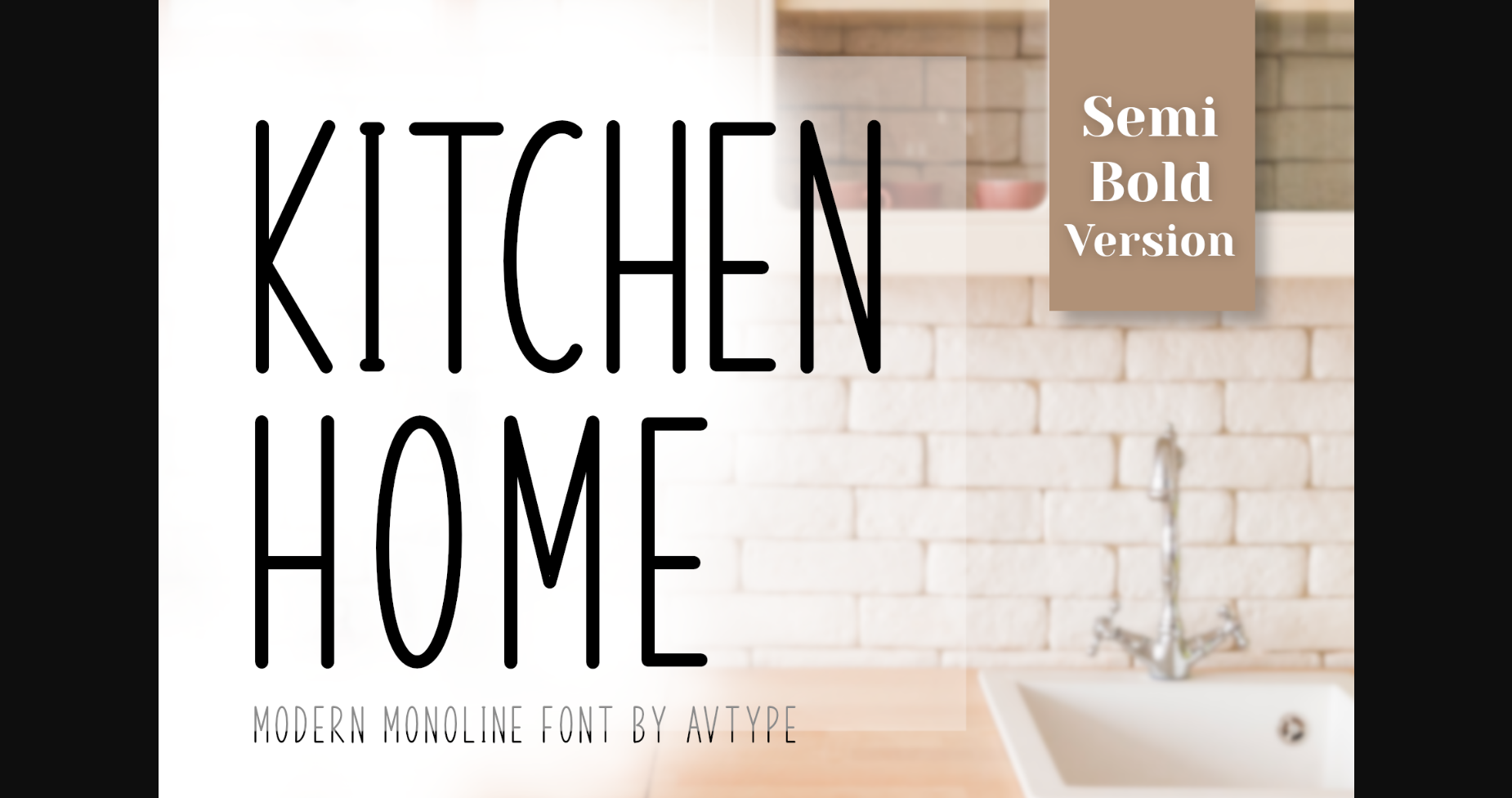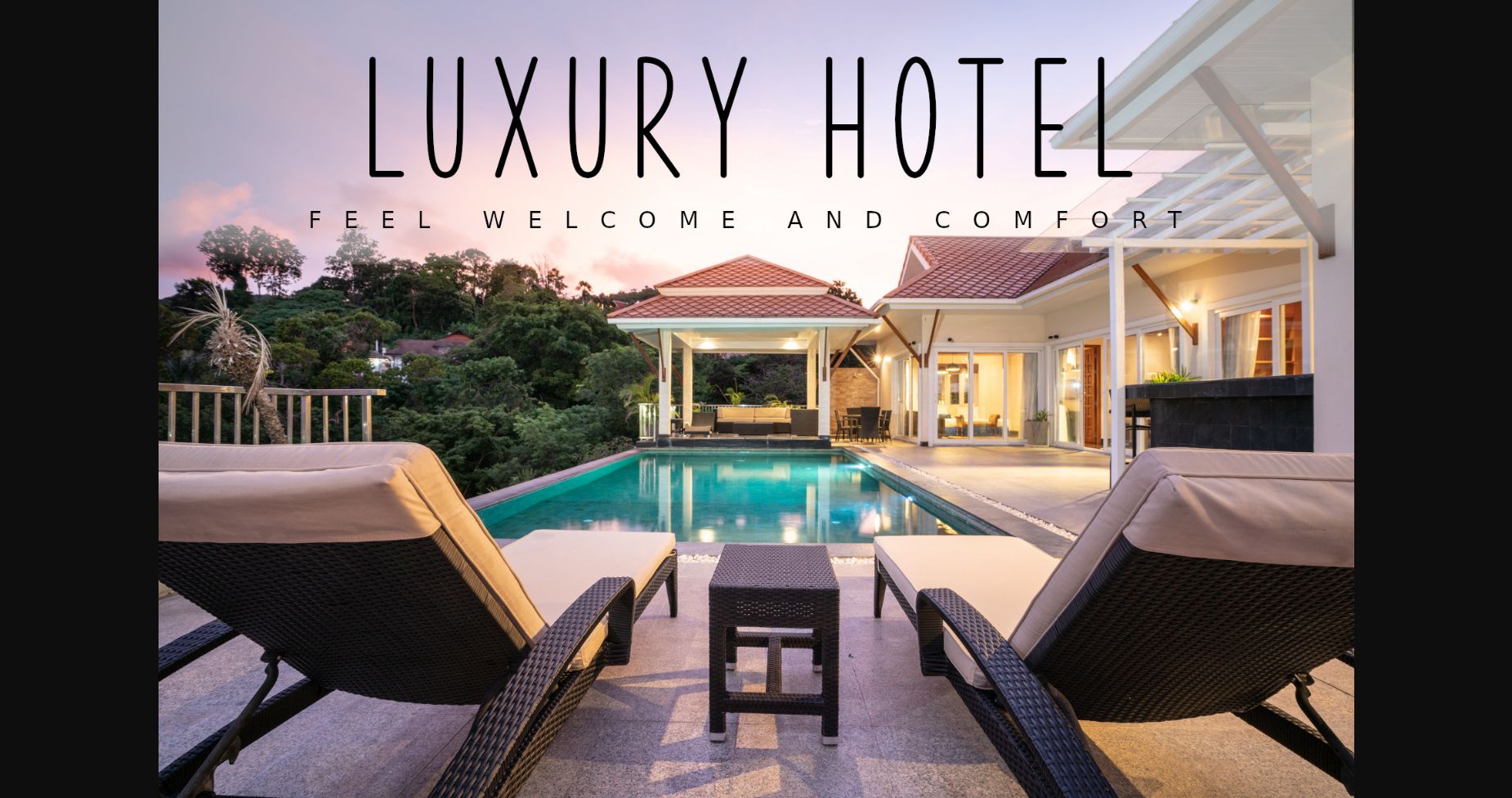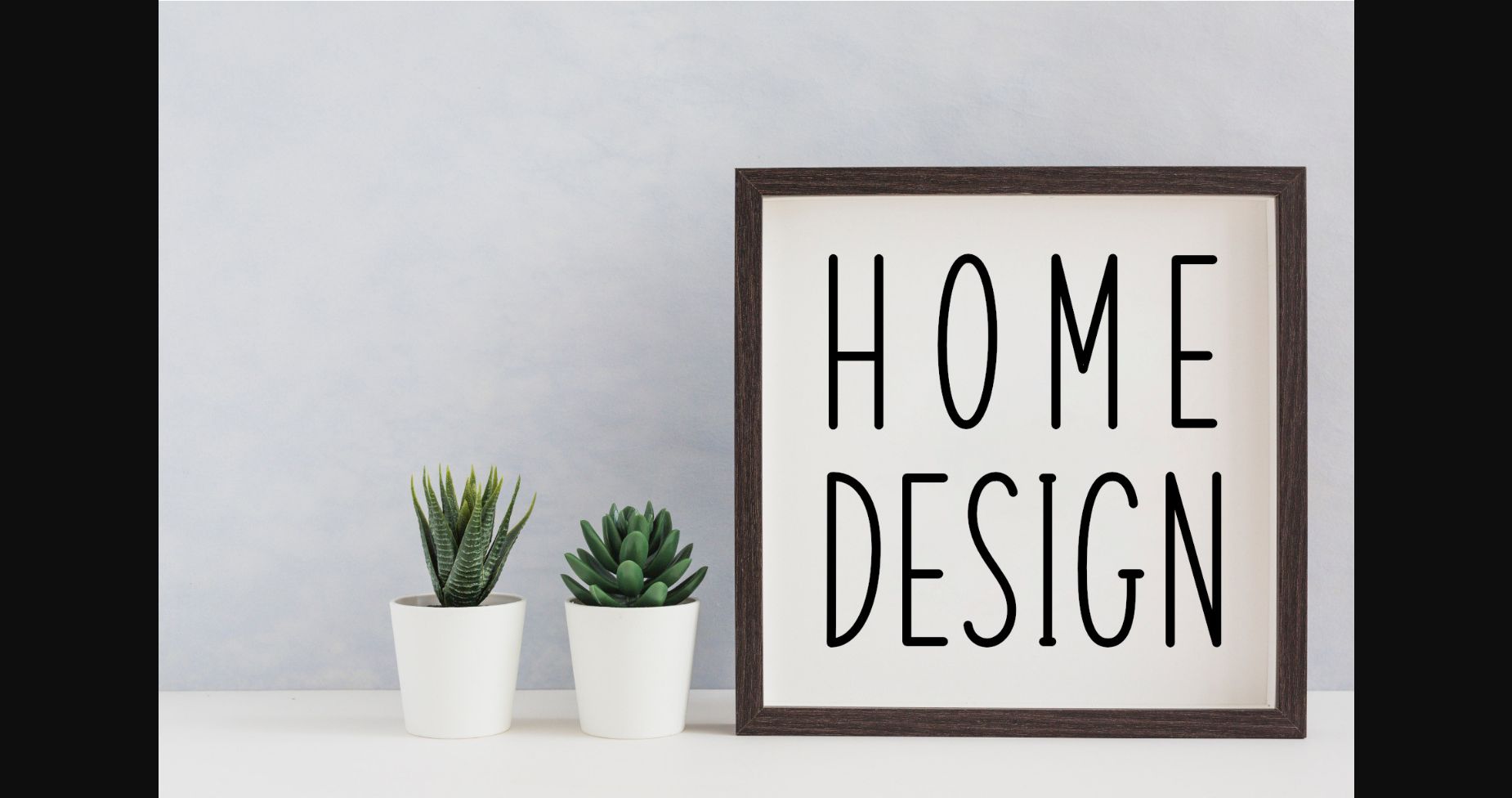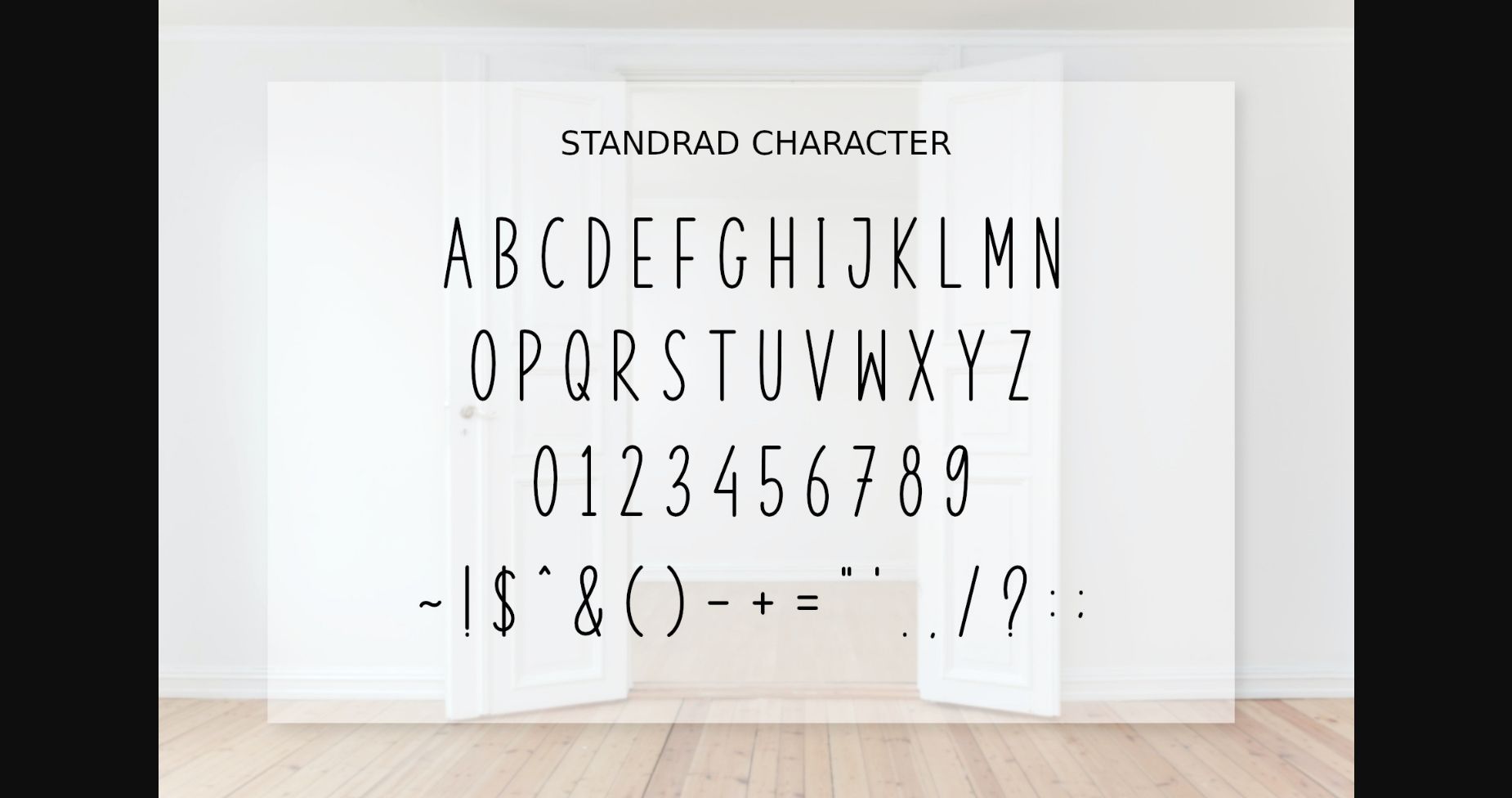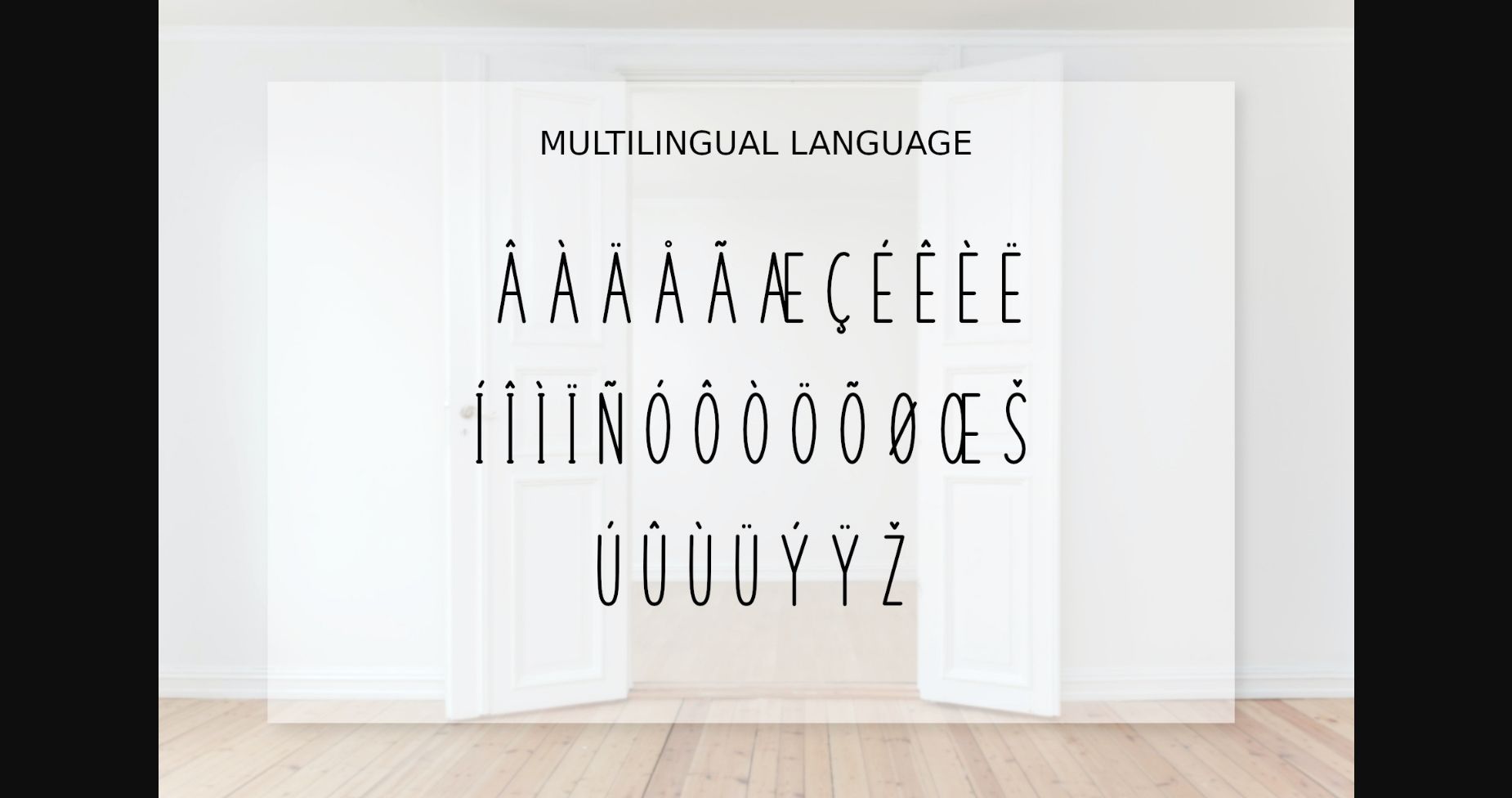
Kitchen Home Font
About Kitchen Home Font
Kitchen Home is a minimal, yet elegant and tall sans serif font. Suitable to a wide variety of designs due to its neat and simple style, Kitchen Home has the potential to become your favorite go-to font, no matter the occasion!